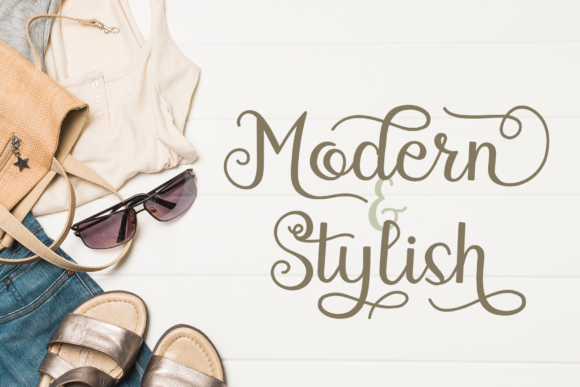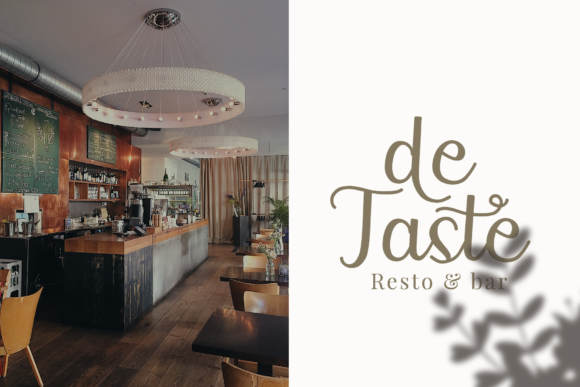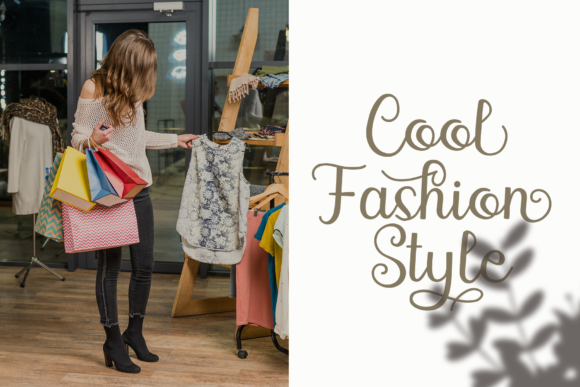
Introduction to Rosmitta Font
Have you ever found yourself stuck on a creative project, desperate for that one font that will elevate your design from ordinary to extraordinary? You know the feeling – the blank page staring back at you, the cursor blinking tauntingly, and the pressure to deliver something truly special. It’s moments like these that a high-quality design resource can be a lifesaver.
Enter the Rosmitta Font, a stunning new script font that’s sure to turn heads. With its gorgeous swashes and elegant lines, this font is the perfect addition to any design project. Whether you’re working on a logo, a brochure, or a website, the Rosmitta Font is sure to add a touch of sophistication and style.
Key Features of Rosmitta Font
- High-quality design resource ideal for creative projects, offering a unique and stylish touch.
- Features a unique, modern design style, setting it apart from other fonts in its class.
Honest Review: Rosmitta Font
I recently stumbled upon the Rosmitta Font, and I must say, it’s been a game-changer for my creative project. This font is a fantastic design resource that offers a lot of versatility.
- ✨ High-quality design: The Rosmitta Font is beautifully crafted with attention to detail, making it perfect for any design project.
While the Rosmitta Font is an excellent addition to any design toolbox, there are a few limitations to be aware of:
- ⚠️ Not suitable for all projects: The Rosmitta Font’s style may not be the best fit for all design projects, particularly those that require a more formal tone.
Overall, I’m really impressed with the Rosmitta Font. Its high-quality design, free download option, and transparent background make it an excellent design resource for any creative project. While it may have some limitations, I think it’s definitely worth checking out.
Tips for Getting the Most Out of Rosmitta Font
To get the most out of the Rosmitta Font, use it in combination with other design elements, such as images and graphics. Experiment with different font sizes and colors to create visually appealing designs. The font’s transparent background also allows you to easily combine it with other design elements.
Common Use Cases for Rosmitta Font
The Rosmitta Font is perfect for a variety of creative projects, including graphics, logos, social media posts, presentations, and documents. Its high-quality design and transparent background make it a versatile design resource that can be used across multiple platforms.